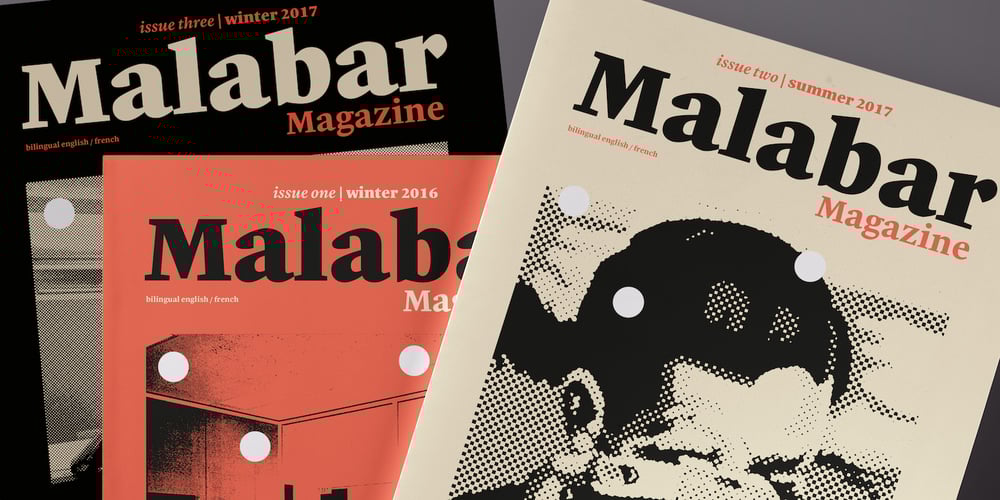
Malabar
Malabar font
Malabar Font Family was designed by Dan Reynolds and published by Linotype. Malabar contains 6 styles and family package options. Malabar is a type family for extensive text. Its design was developed with a nod toward newspapers. Malabar’s characters are seriffed and of the Old Style genre. A strong diagonal axis is apparent within the curves. Sturdy serifs help strengthen the line of text in small point sizes, as well as define the overall feeling of the face. Malabar’s x-height is very high, a deliberate choice that makes the most important parts of lowercase letters visibly larger in tiny settings. The height of the capital letters is also rather diminutive, allowing for better character fit, as well as eliminating a bit of clumsiness in German, which often includes quite a few uppercase letters. Diacritical marks and additional alphabetic forms required by many Western, Central, and Eastern European languages are naturally a part of the character set, including those needed in the Baltic states, for Romanian, and for Turkish. Malabar’s accents are bold and direct, sitting well with their base glyphs. The family includes three weights, each with a companion Italic. Malabar Regular is equipped with small caps, and both it and Malabar Italic include oldstyle figures. All members of the family have both proportional and tabular-width lining figures, as well as special variants of certain punctuation marks vertically adjusted for all-caps text setting. Malabar is informed both by contemporary ideas of typeface design (sheared terminals, the wider-drawn s) as well as by 16th-century masters. Malabar Heavy and Heavy Italic are very loud; their blackness almost shouts out from the page. The Regular’s wedge serifs become more slab-ish in nature as the letters’ weight increases. Malabar Heavy and Heavy Italic are best relegated to headline use only. Malabar Bold and Bold Italic may be used for text emphasis, a job for which the Heavy is to dark. Malabar received a Certificate of Excellence in Type Design at the Type Directors Club of New York TDC2 competition in 2009.